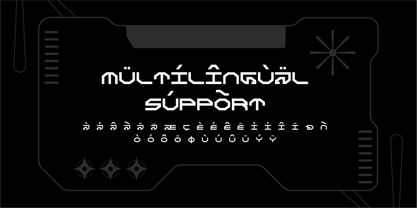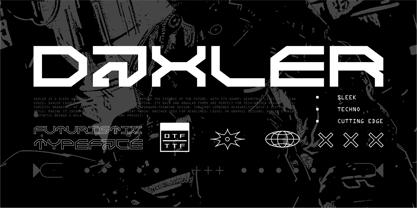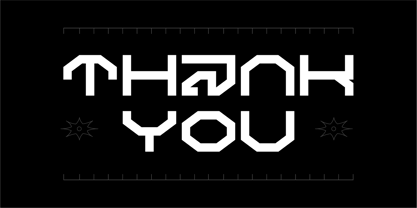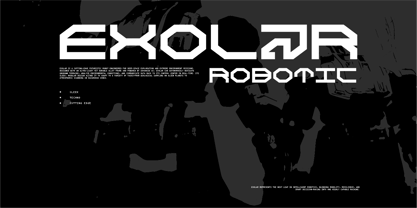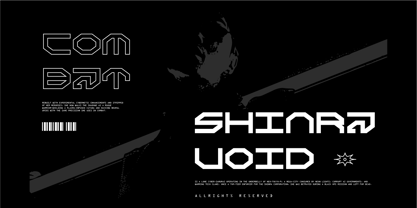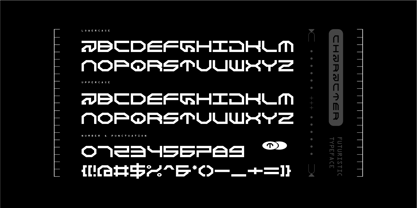
Daxler
Daxler is a sleek and modern typeface designed to capture the essence of the future. With its sharp, geometric lines and clean edges, Daxler exudes a sense of precision and innovation. Its bold and angular forms are perfect for tech-driven projects, futuristic branding, or anything that seeks to embody forward-thinking design. The font combines readability with a cutting-edge style, making it ideal for both digital and print media. Whether used for headlines, logos, or graphic designs, Daxler's unique aesthetic brings a bold, modern touch to any project.
Typeagle is an Indonesian type design studio specializing in graphic design and futuristic display fonts. The studio focuses on creating distinctive typefaces that combine modern aesthetics, technological inspiration, and bold visual identities. Typeagle develops custom fonts designed for branding, posters, digital media, gaming, entertainment, and creative projects that require a strong futuristic character.